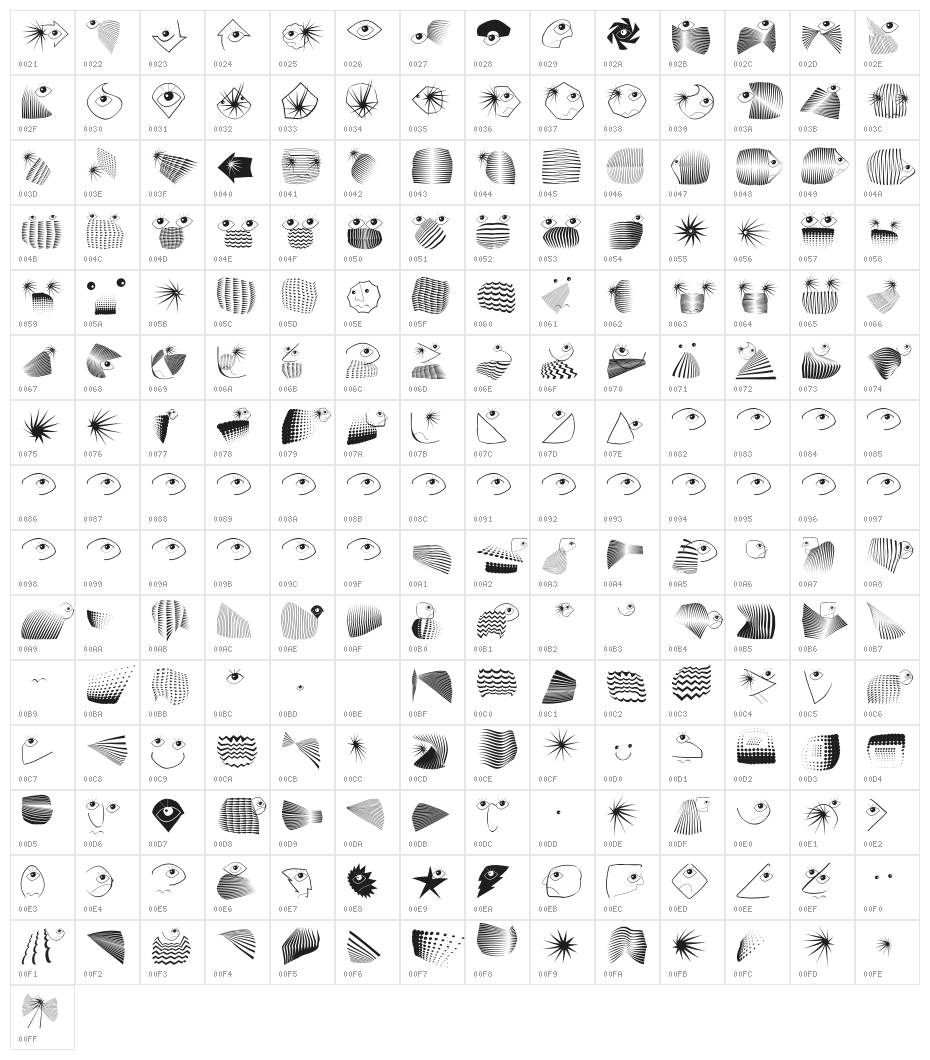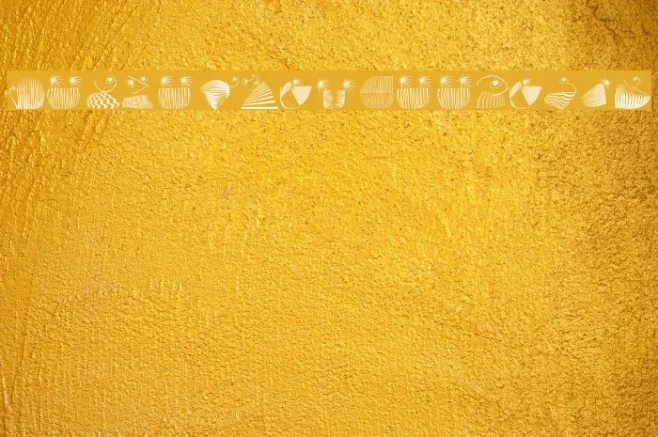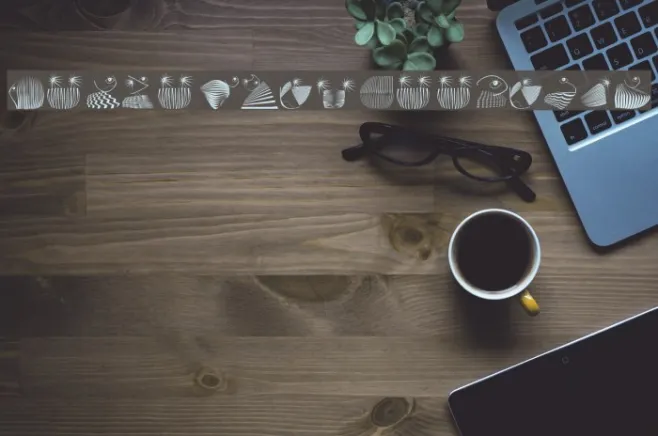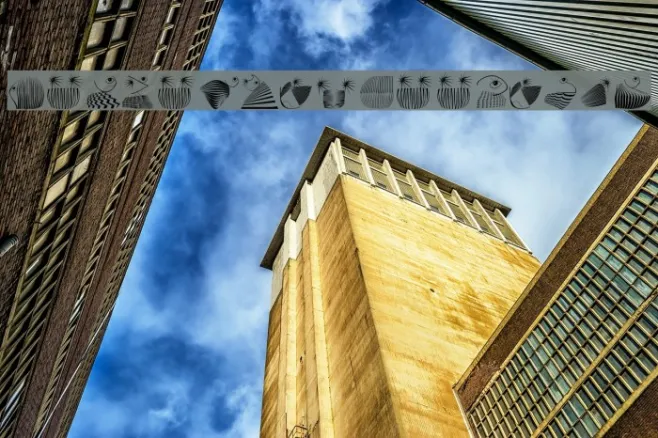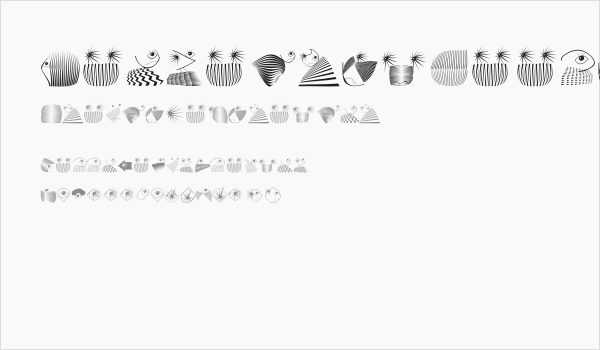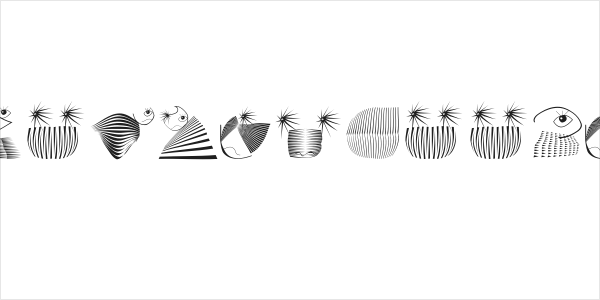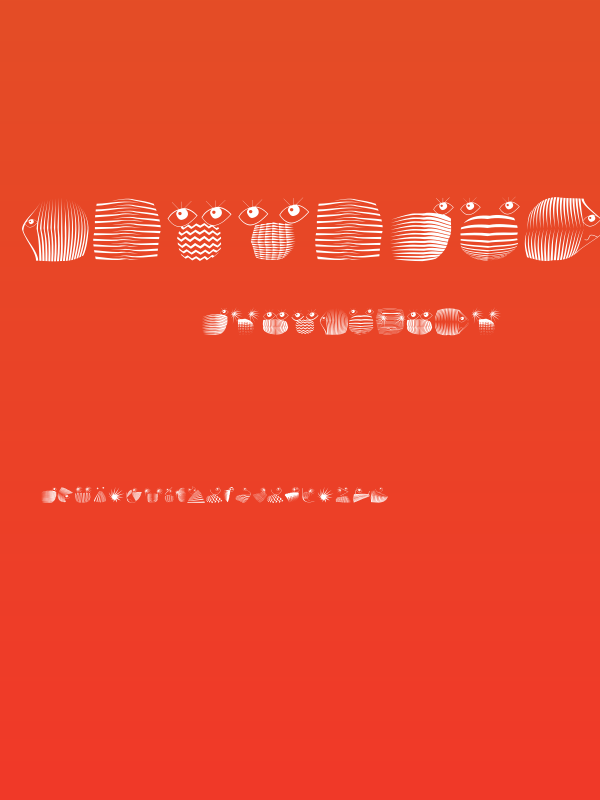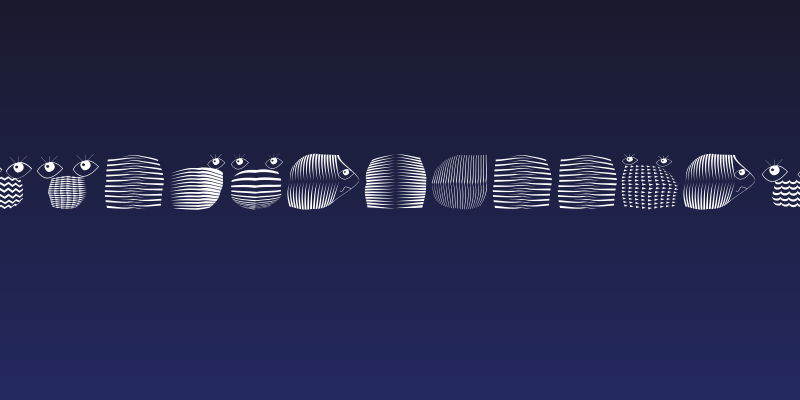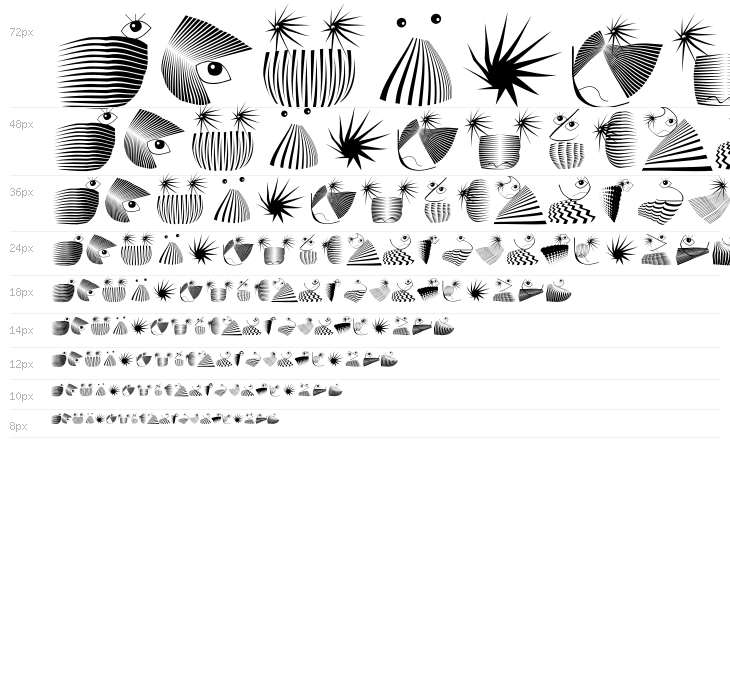
GeometricFeelings Font
GeometricFeelings Description
This design is a collection of abstract geometric shapes and patterns, each with unique textures and forms. The elements are characterized by a mix of lines, dots, and curves, creating a dynamic and visually intriguing set. The shapes resemble a fusion of organic and geometric forms, with some elements featuring eye-like motifs and others displaying starburst patterns. The overall style is playful and artistic, making it suitable for creative and unconventional design projects.
| Use Case | Logos, Artistic designs, Creative branding |
| Proposed Projects | Ideal for use in modern art projects, creative branding, abstract posters, and unique packaging designs. |